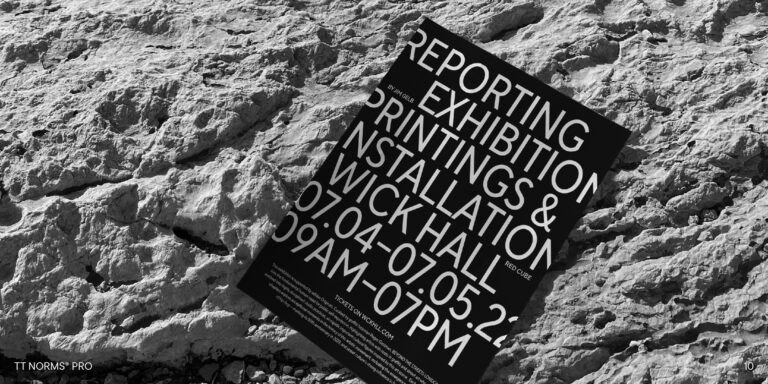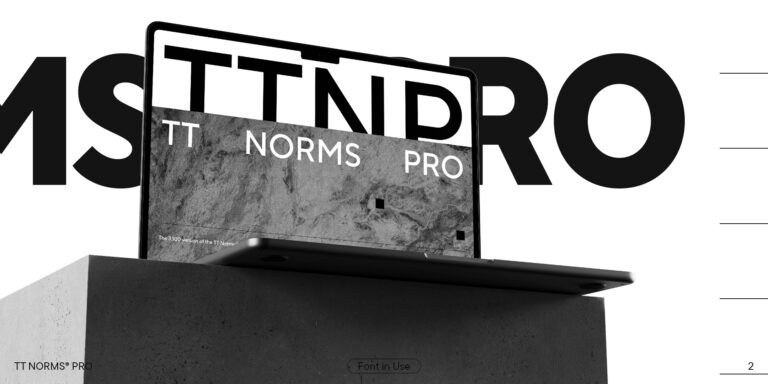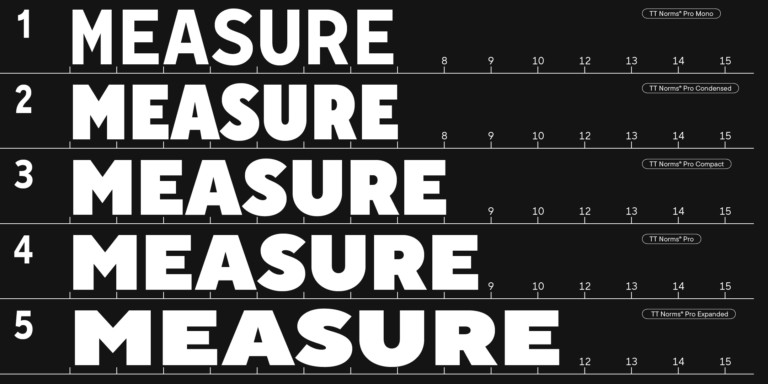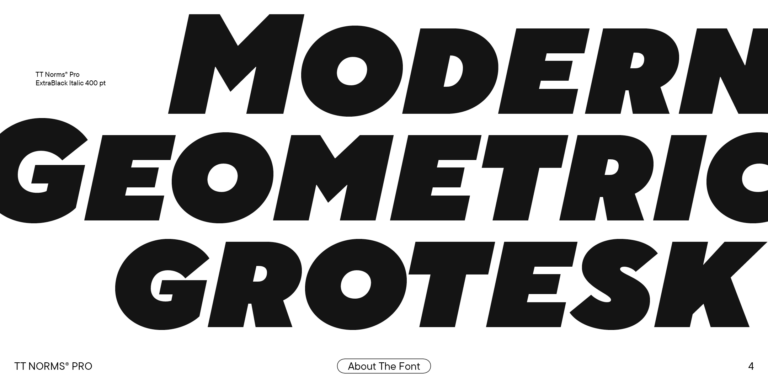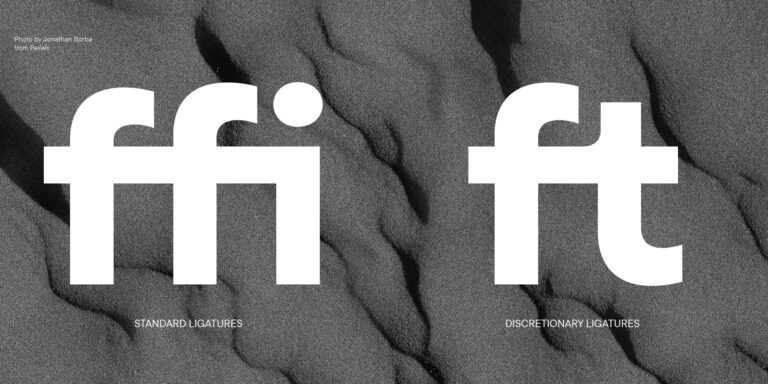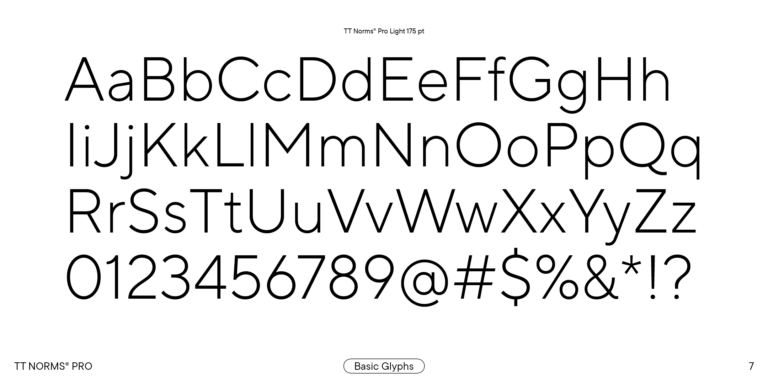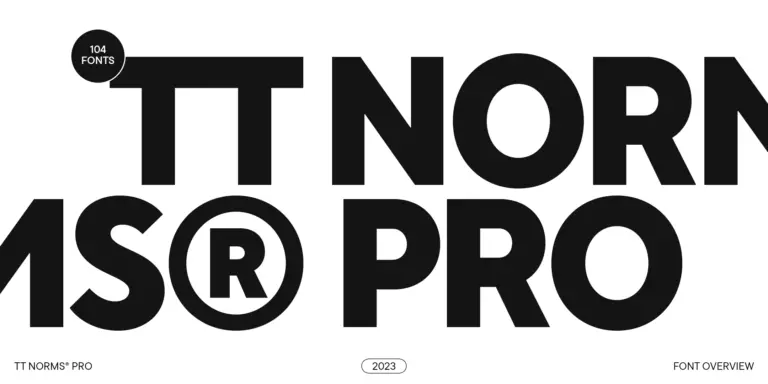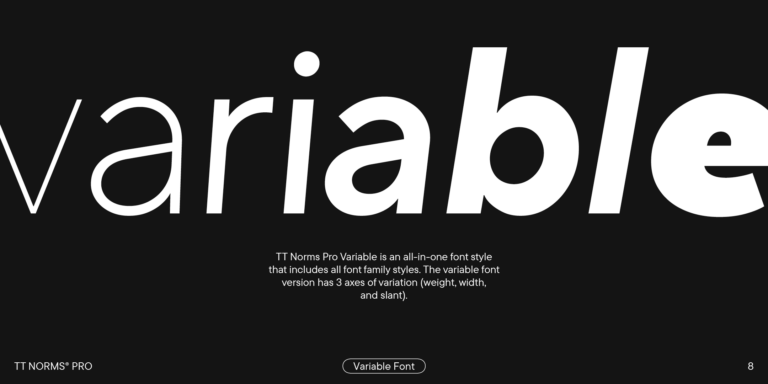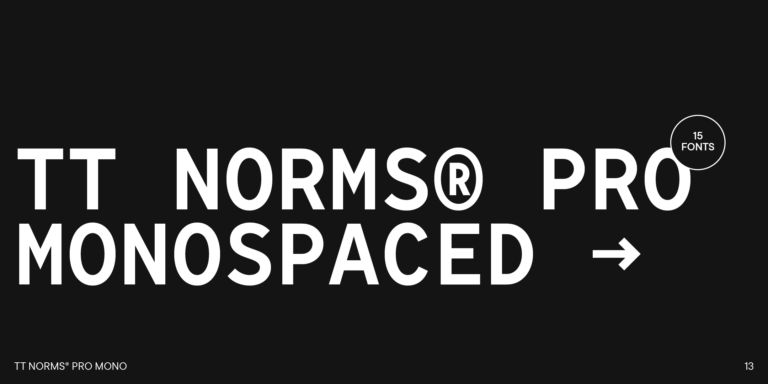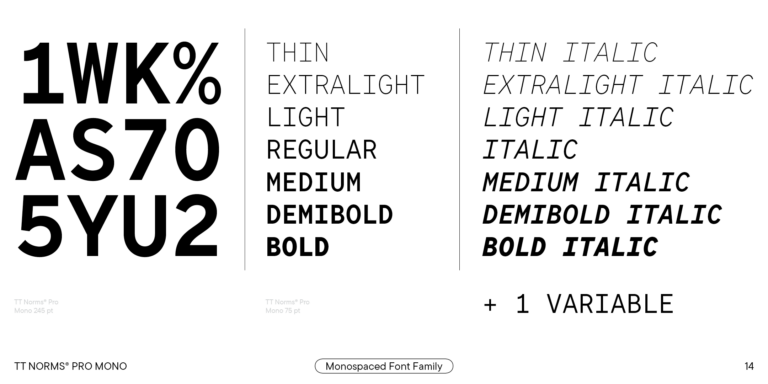
TT Norms Pro Font Family
We have updated TT Norms Pro! Meet the new Compact styles and the expanded character set. TT Norms Pro 3.0 — #1 bestselling geometric sans released on MyFonts in 2017!
TT Norms Pro is a universal functional sans serif for beautiful solutions, a TypeType studio bestseller. We added 22 Compact styles to the font family that correspond to the basic fonts in order to expand the scope of TT Norms Pro. Now, designers have an even more modern and functional version of the font at their disposal.
Where TT Norms Pro Font Family works best
TT Norms Pro Font Family stays legible at small sizes, which makes it a strong choice for navigation, buttons and dashboards in web design and app interfaces.
Clean sans serifs like TT Norms Pro Font Family are the default language of SaaS, fintech and product branding.
What is TT Norms Pro Font Family good for?